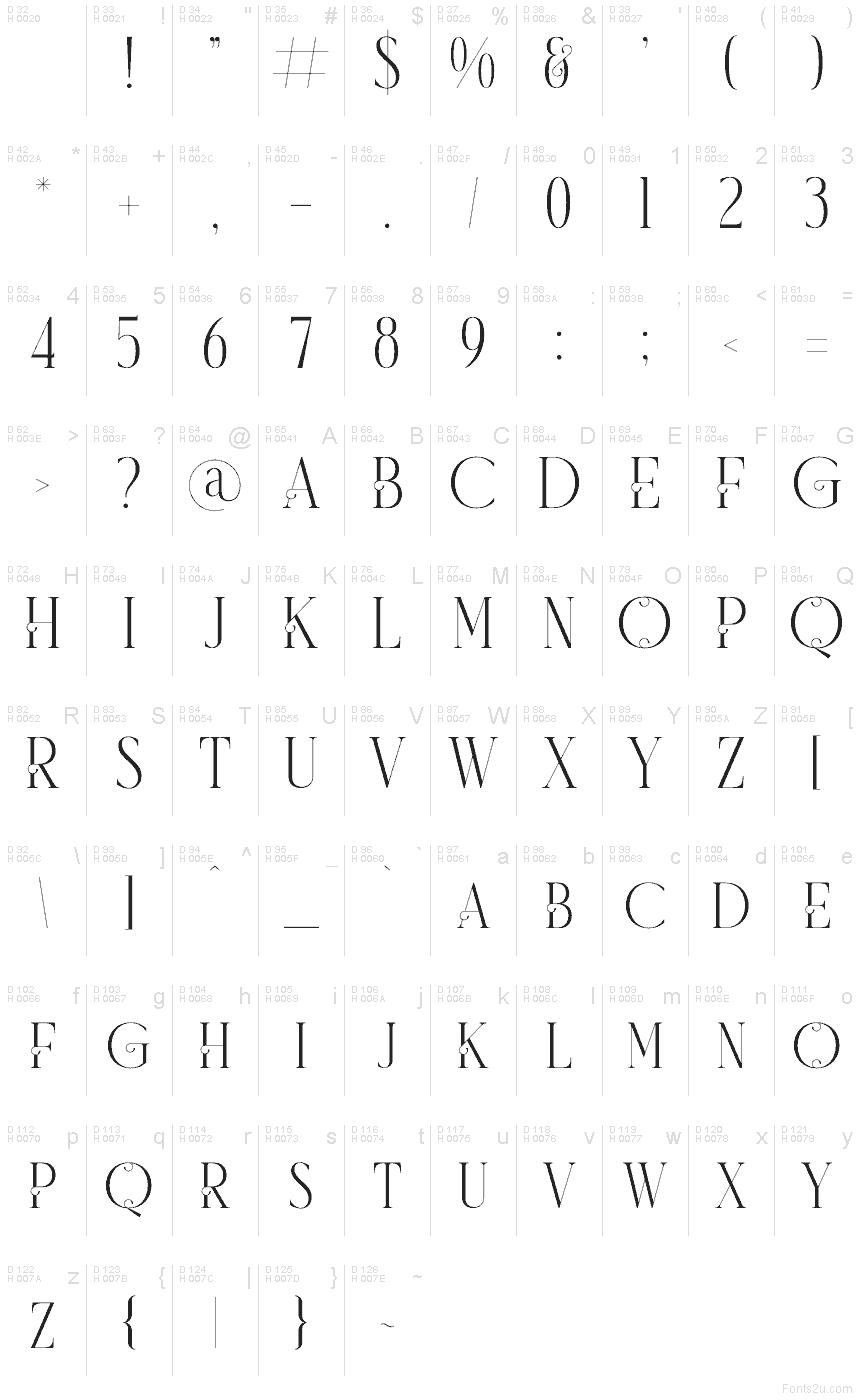
Wistern
Wistern font by Storytype Studio is a free retro serif typeface. Its signature look comes from razor-fine strokes that flare into lush, teardrop terminals, giving each word a chic, editorial snap. The letters feel tall and tailored, with elegant tapering that catches light like ink on glossy paper—dramatic without getting fussy.
Using Wistern, headlines lock in with a luxe rhythm that shines on magazine covers, boutique logos, wine or perfume packaging, event invitations, art posters, and upscale menus. This free font rewards big sizes and a touch of extra tracking for air. For body copy or captions, pair Wistern with a clean, neutral sans to let the ornate shapes do the talking.